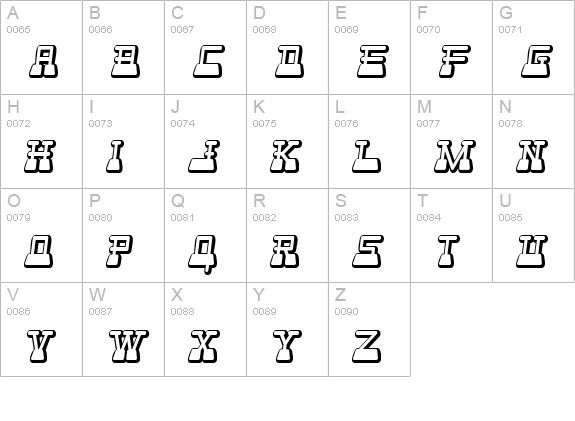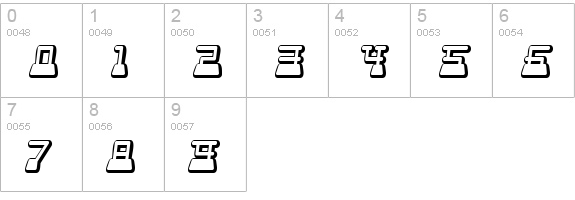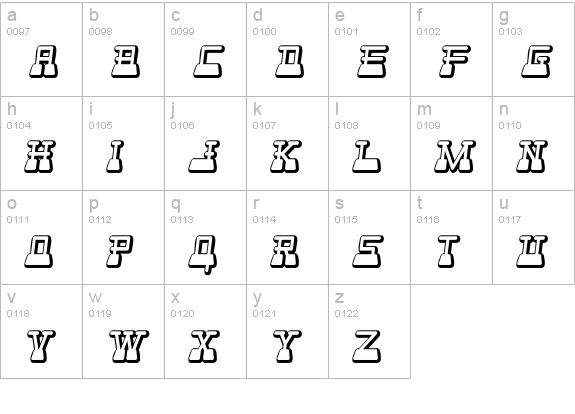
WebsterWorld Font Details
WebsterWorld font is a stunning display font that exudes elegance and sophistication. With its clean lines and modern design, it is perfect for adding a touch of class to any project. Whether you are designing a logo, creating a website, or designing marketing materials, WebsterWorld font is sure to make a lasting impression. One of the best things about WebsterWorld font is that it is free to download. That's right, you can get your hands on this incredible font without spending a dime. Simply head over to FontsMarket.com and start exploring the vast library of fonts available. WebsterWorld font is just one of the many high-quality fonts that you can find on the website. With WebsterWorld font, you have the freedom to unleash your creativity and bring your designs to life. Its versatility allows it to be used in a variety of contexts, from professional presentations to playful designs. The font's smooth curves and balanced proportions make it easy to read, ensuring that your audience will have no trouble engaging with your content. Whether you are a graphic designer, a student, or a small business owner, WebsterWorld font is a valuable asset to have in your font collection. Its timeless appeal and versatility make it a go-to choice for any design project. So why wait? Download WebsterWorld font today and start creating visually stunning designs that will captivate your audience. Remember, it's freely available at FontsMarket.com, so you have nothing to lose and everything to gain.